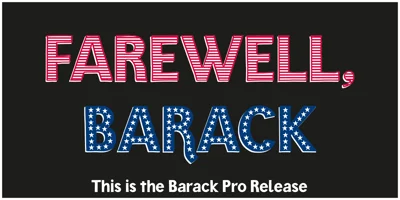
Barack Font
Barack Font is perfect for political campaign materials, leadership training presentations, inspirational speaker branding, government communications, civic engagement projects, public service announcements, and presidential-style marketing campaigns.
What makes Barack Font exciting is its presidential authority and inspirational leadership, featuring commanding letterforms that capture the essence of political gravitas while delivering distinguished visual impact and democratic authenticity.
The Barack Font family includes Light, Regular, Medium, Bold, and Heavy weights, plus presidential variants and leadership alternates that enhance the font's authoritative character and political possibilities.
Barack Font embodies the distinguished spirit of political leadership and the inspiring power of democratic governance through authoritative typography design. This commanding typeface captures the presidential dignity of executive leadership and the inspirational energy of democratic ideals, creating a powerful visual language that speaks to political professionals and civic leaders who value democratic principles, inspirational leadership, and the distinguished appeal of presidential communication. The font's authoritative character and political appearance make it perfect for political organizations, civic institutions, and leadership brands that want to communicate authority, inspiration, and the compelling appeal of democratic leadership.
Political organizations and civic institutions consistently select Barack Font for projects that require authentic political credibility and inspirational visual impact. The typeface's commanding construction and presidential personality make it exceptionally effective for campaign organizations, civic groups, and leadership development companies where political authority and democratic inspiration are paramount. Each character has been designed with presidential precision to ensure maximum impact across all political applications and civic environments.
The leadership advantages of Barack Font extend beyond its political appeal to include practical functionality for diverse civic applications. The font maintains excellent readability in public settings while delivering the distinctive character that creates memorable political experiences and connects with audiences seeking authentic democratic leadership. Its comprehensive character set includes civic symbols and political elements that make it particularly suitable for government documentation and democratic communication.
Campaign organizations, civic institutions, and leadership development companies frequently choose Barack Font because of its ability to instantly convey political authenticity and democratic sophistication. The typeface's presidential aesthetic helps establish credibility in competitive political markets while appealing to voters who value inspirational leadership, democratic principles, and the empowering experiences that come from authentic political engagement and presidential-style communication.